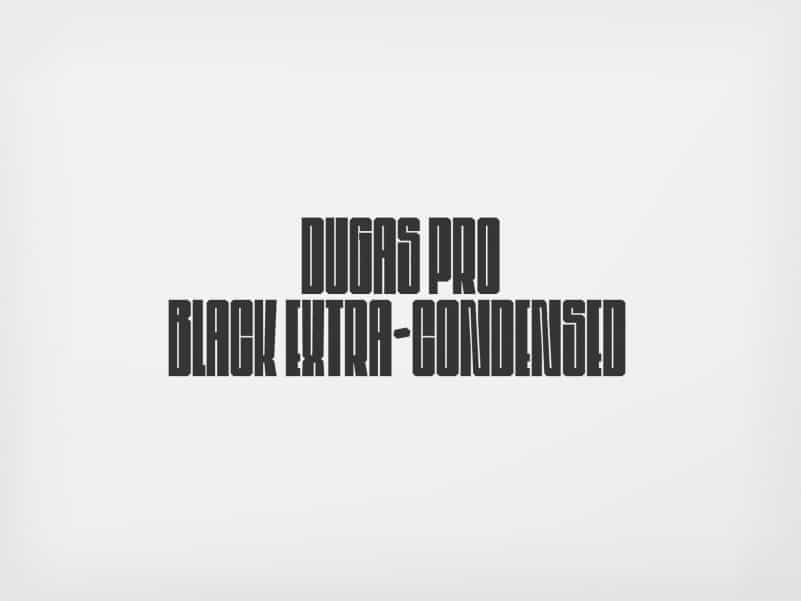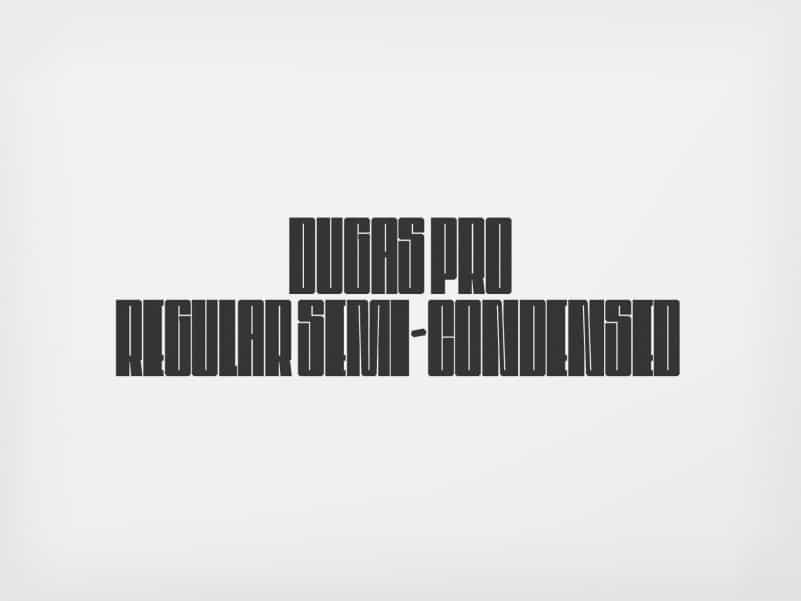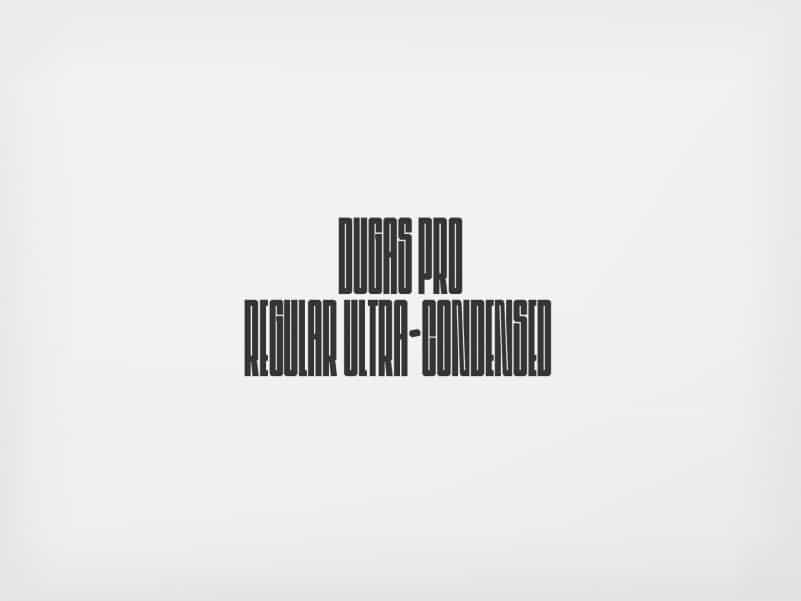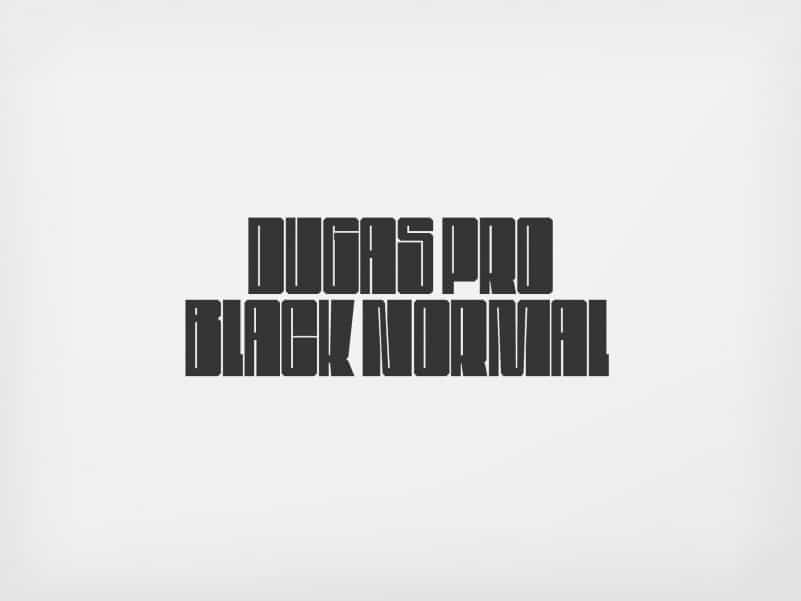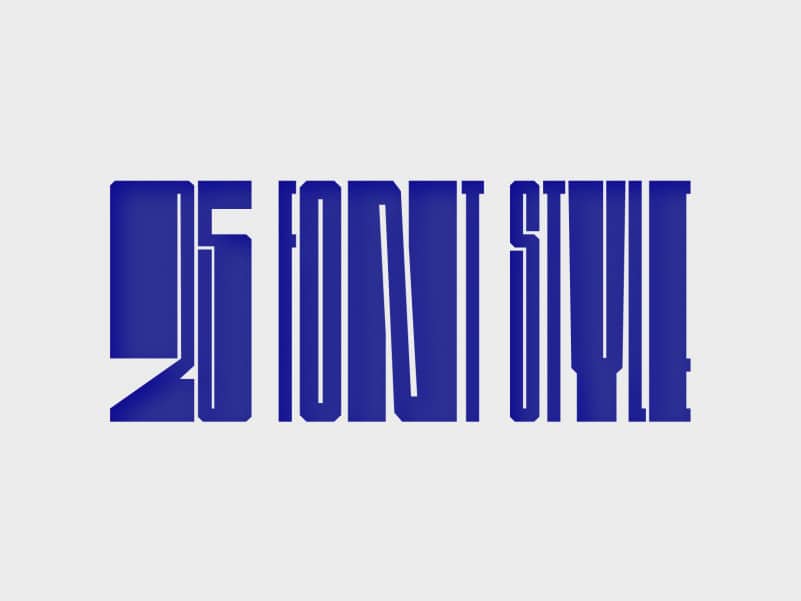
Dugas Pro Display Font is an extra long typeface built to stretch the way that we view typography. Created to be as flexible as it is obnoxious, Dugas Pro can be modified easily to become as long or short as you like. Made from font designer named Jacek Macha Machowski . And it’s is the extended version of Dugas. It is an ultra condensed & minimalistic font family with 24 versions. This font family is very eye-catching making it perfect for posters, large scale artwork, titles & headlines.